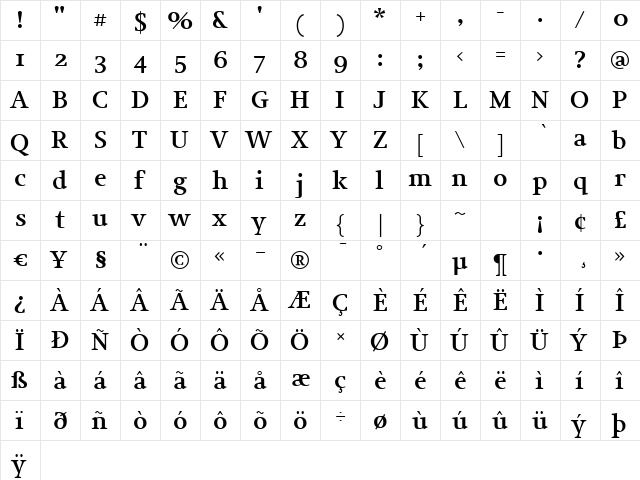
JudeBold Regular Font Preview
JudeBold Regular
JudeBold Regular Font Details
Design Context for JudeBold Typeface
JudeBold takes a measured approach to typography — its balanced proportions and neutral character make it a reliable workhorse for both digital and print work. The heavy weight commands attention and anchors typographic hierarchies.